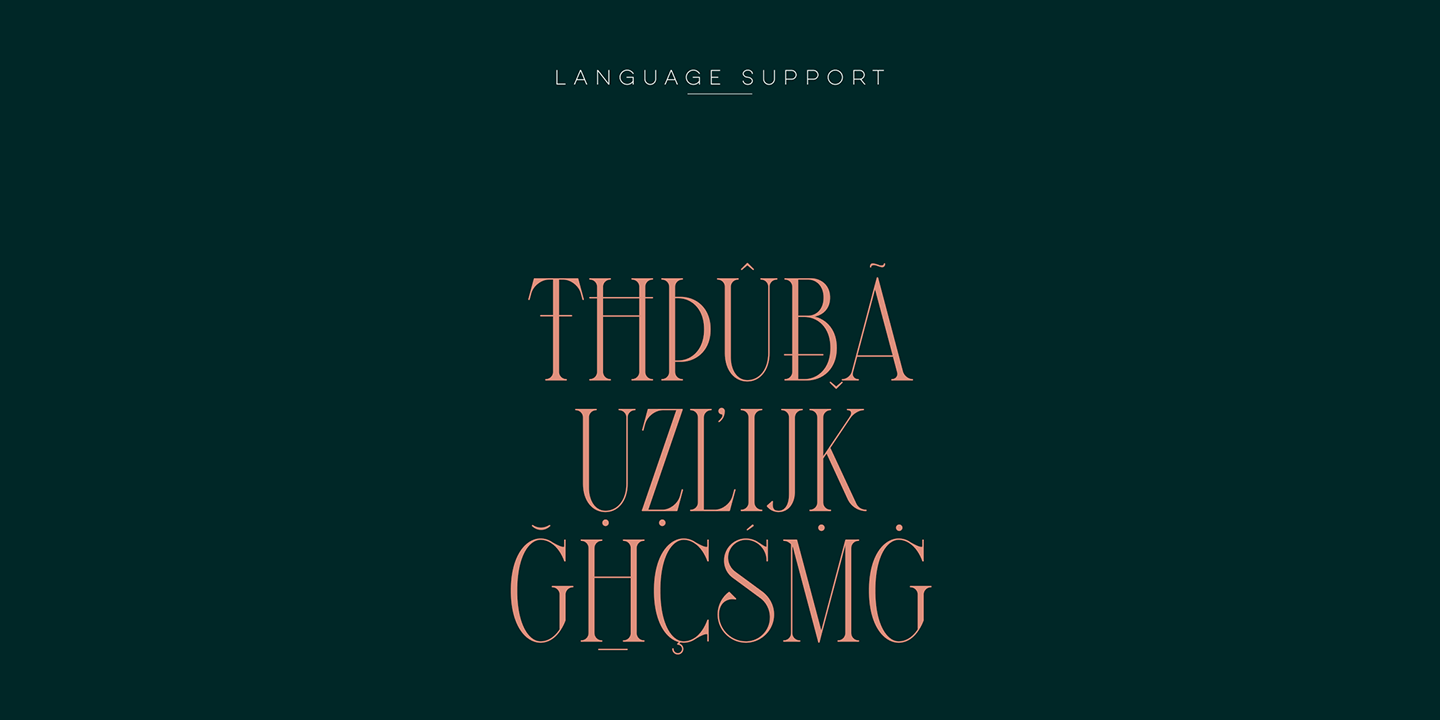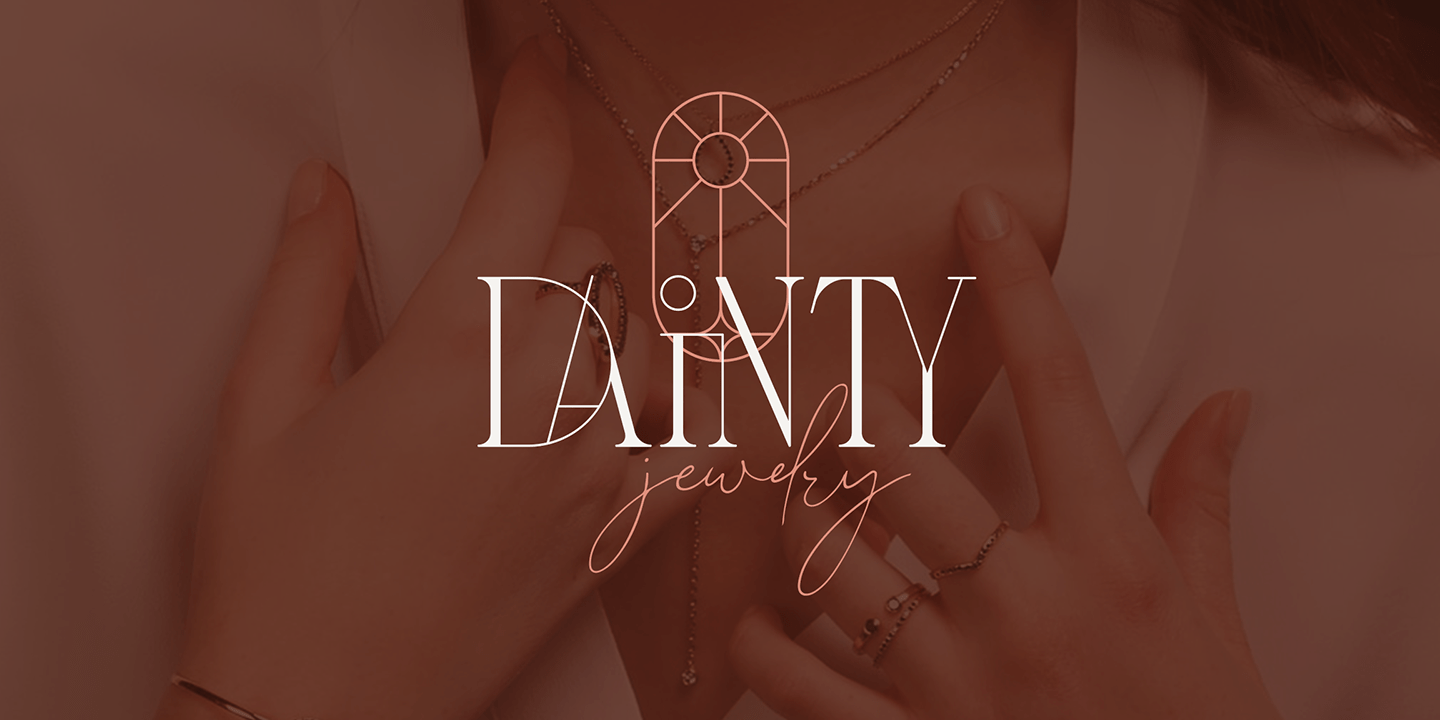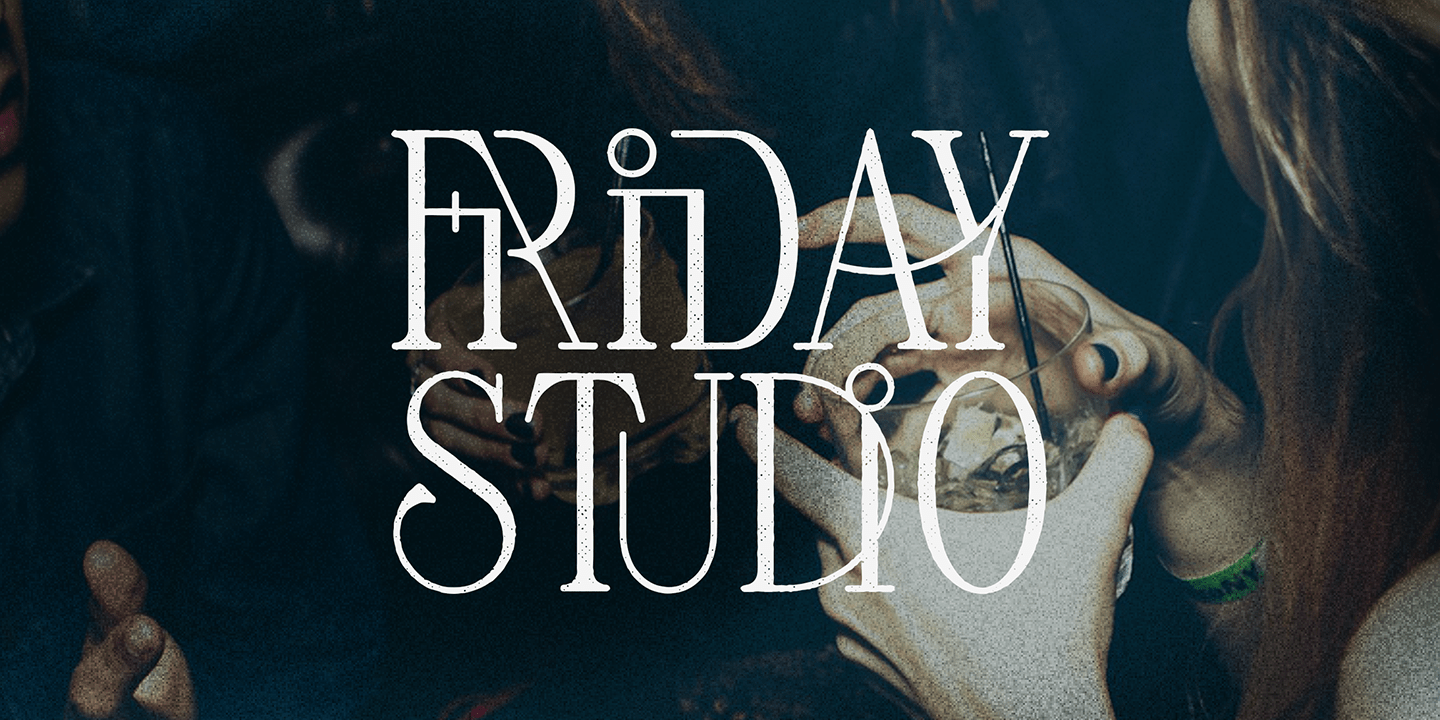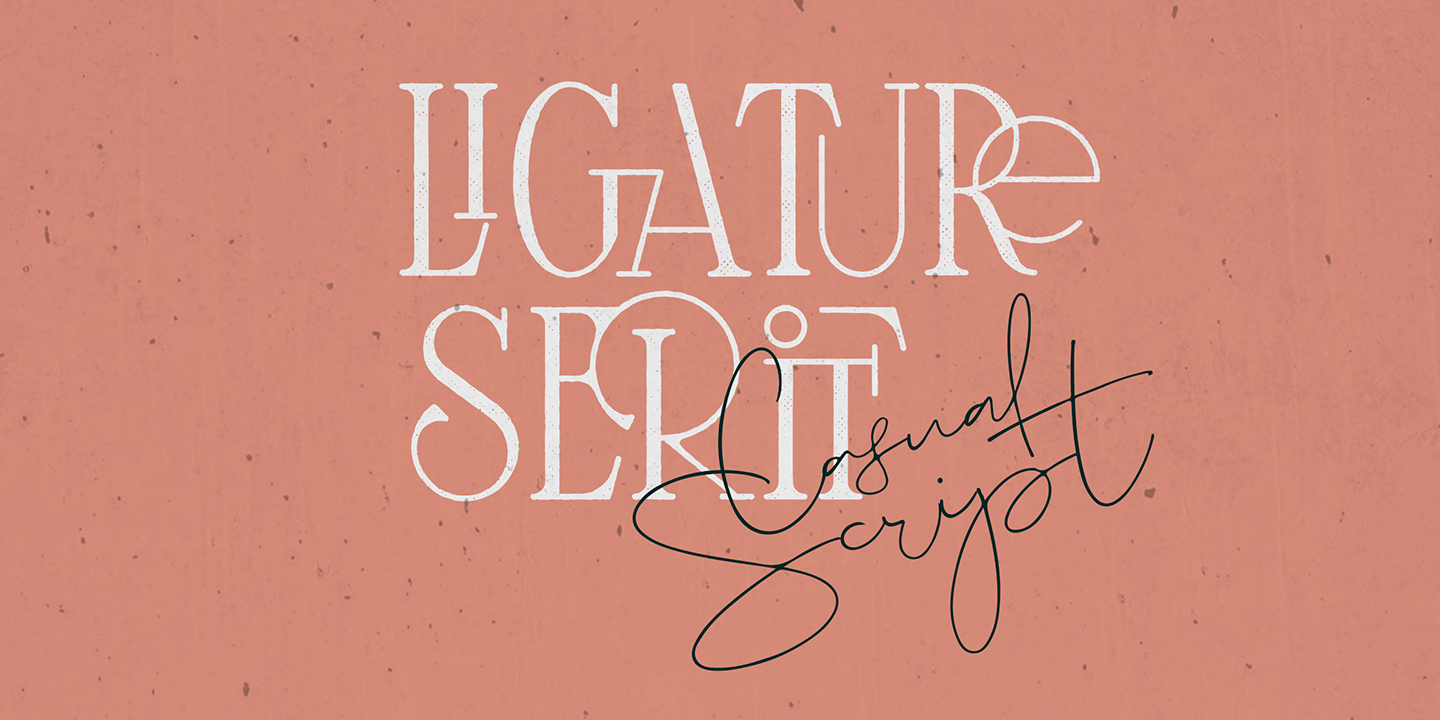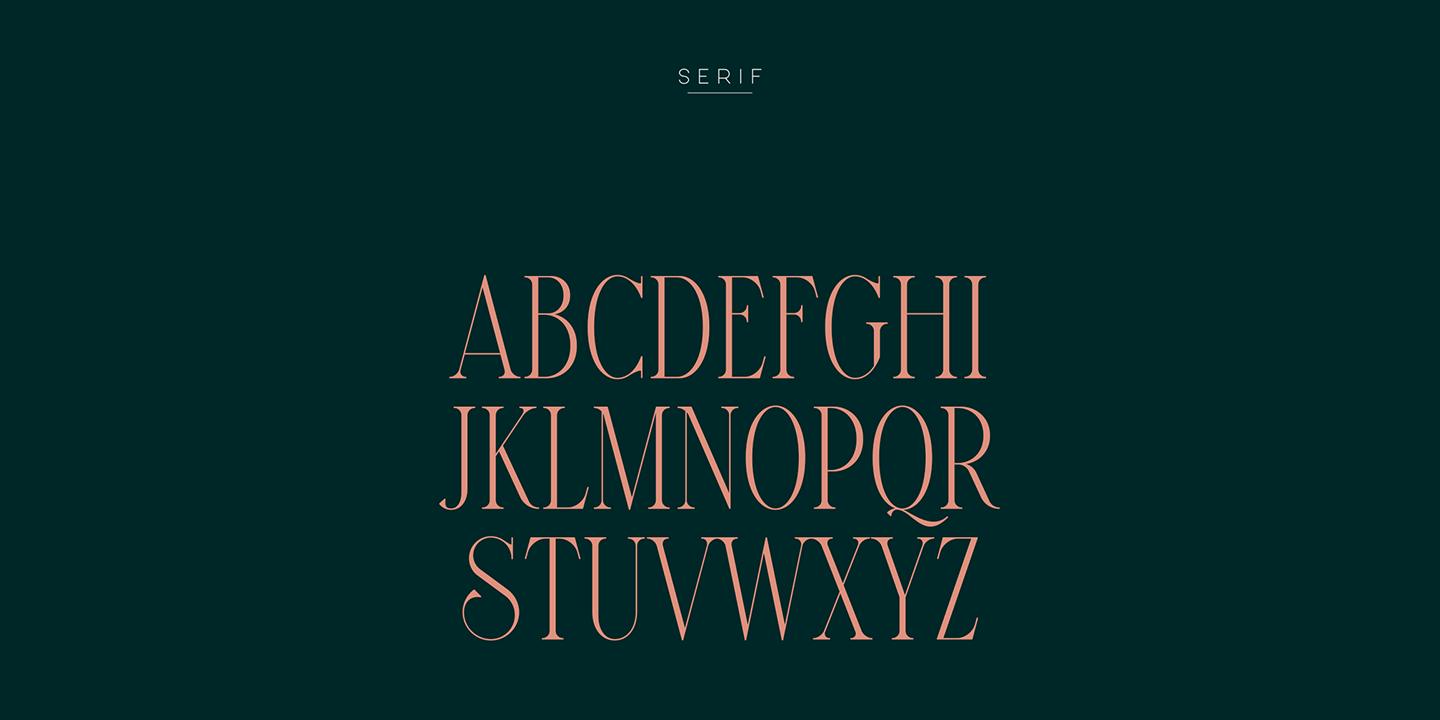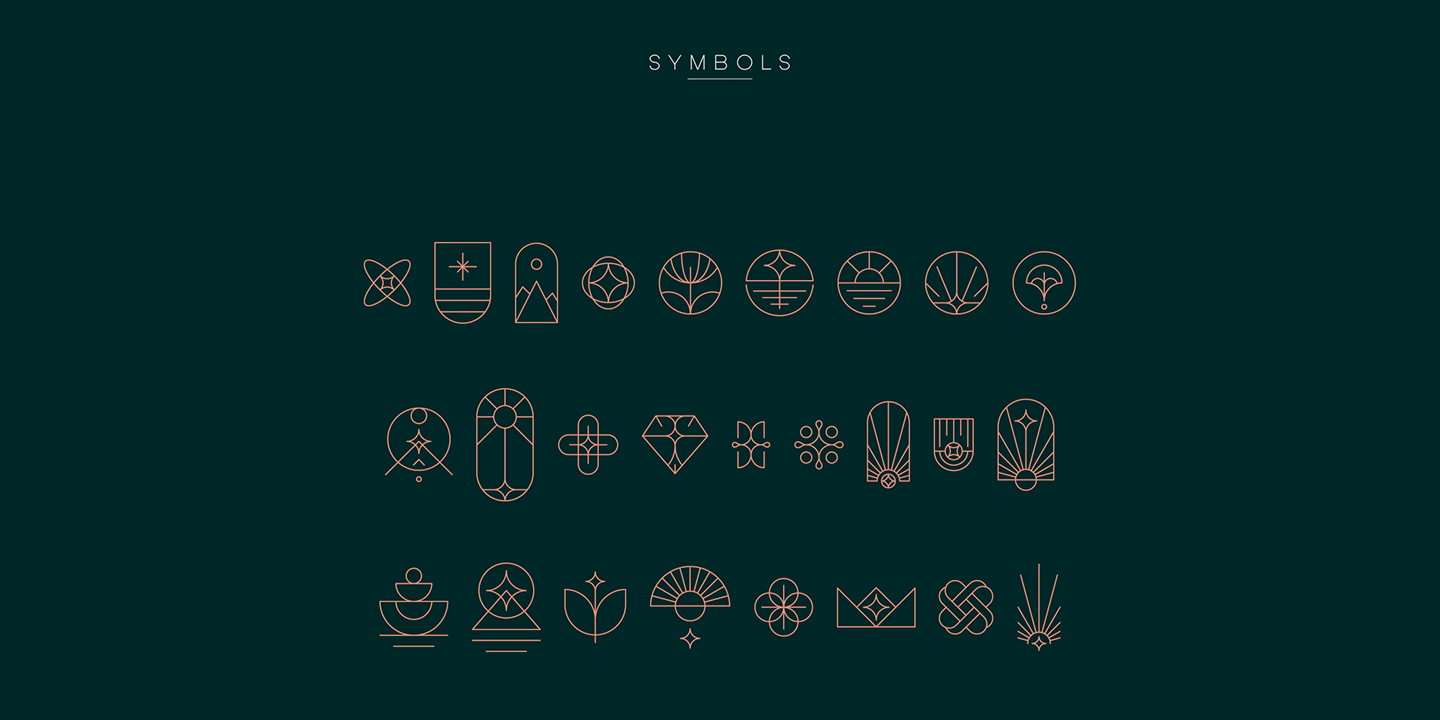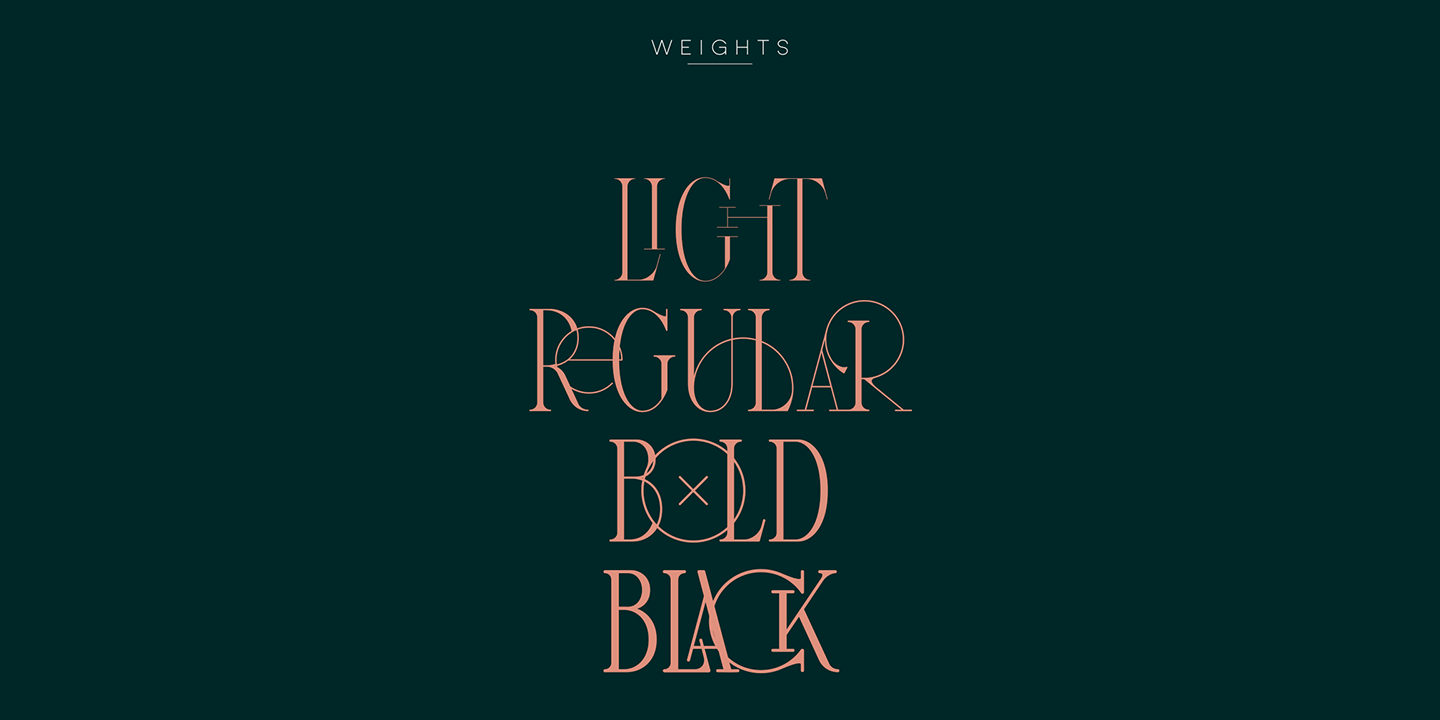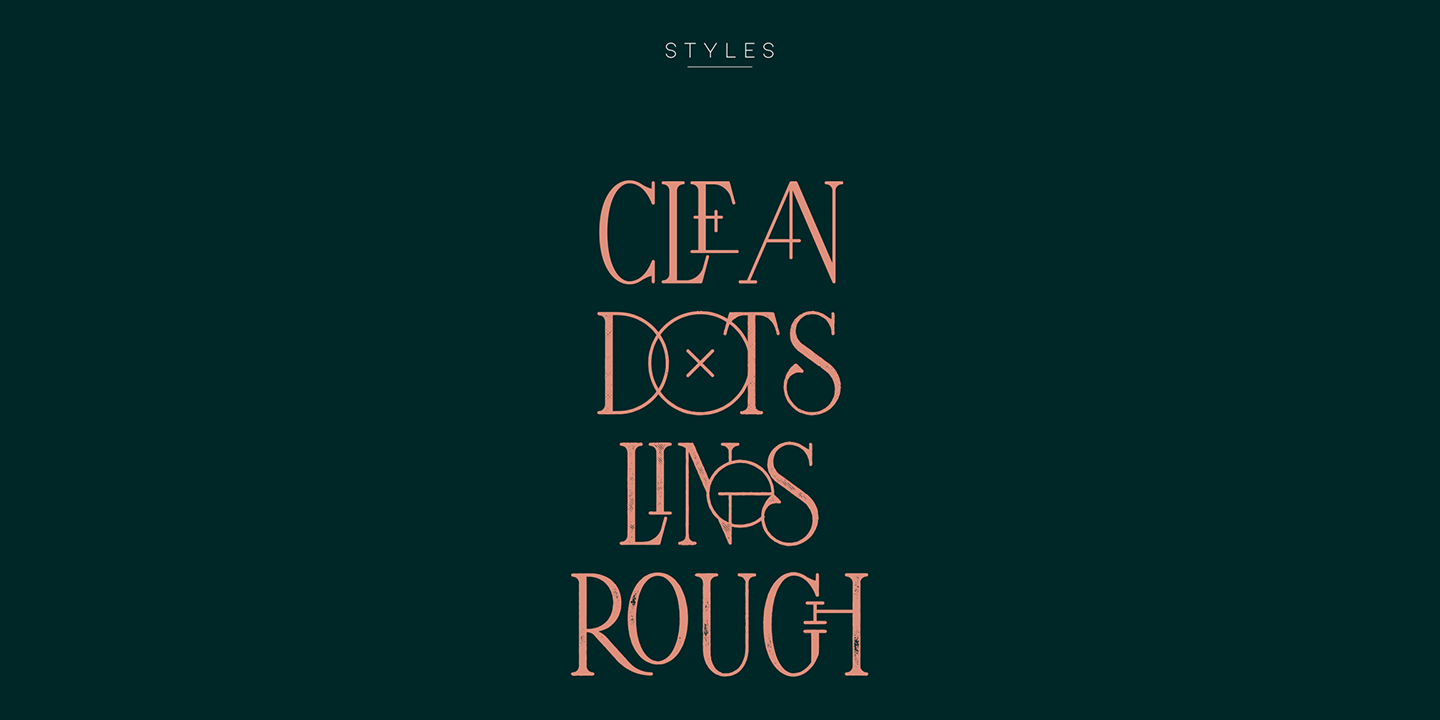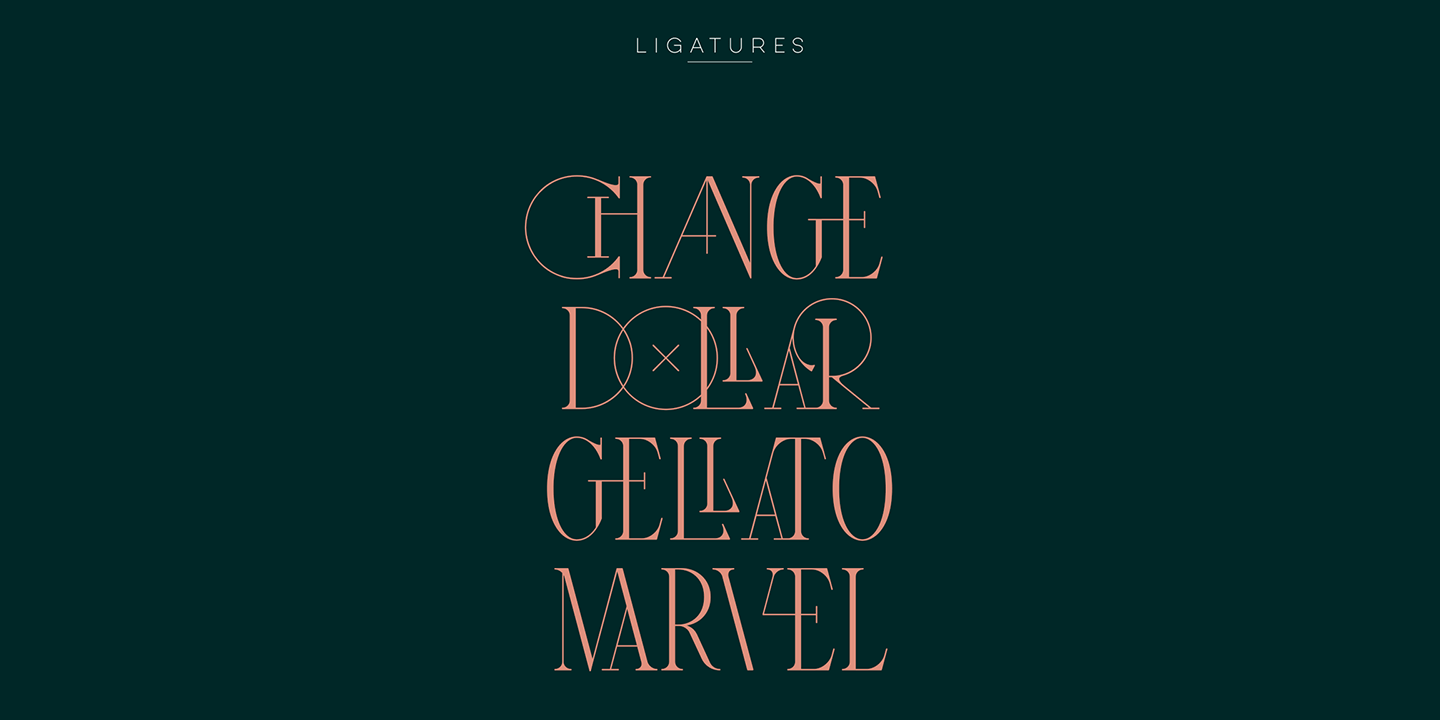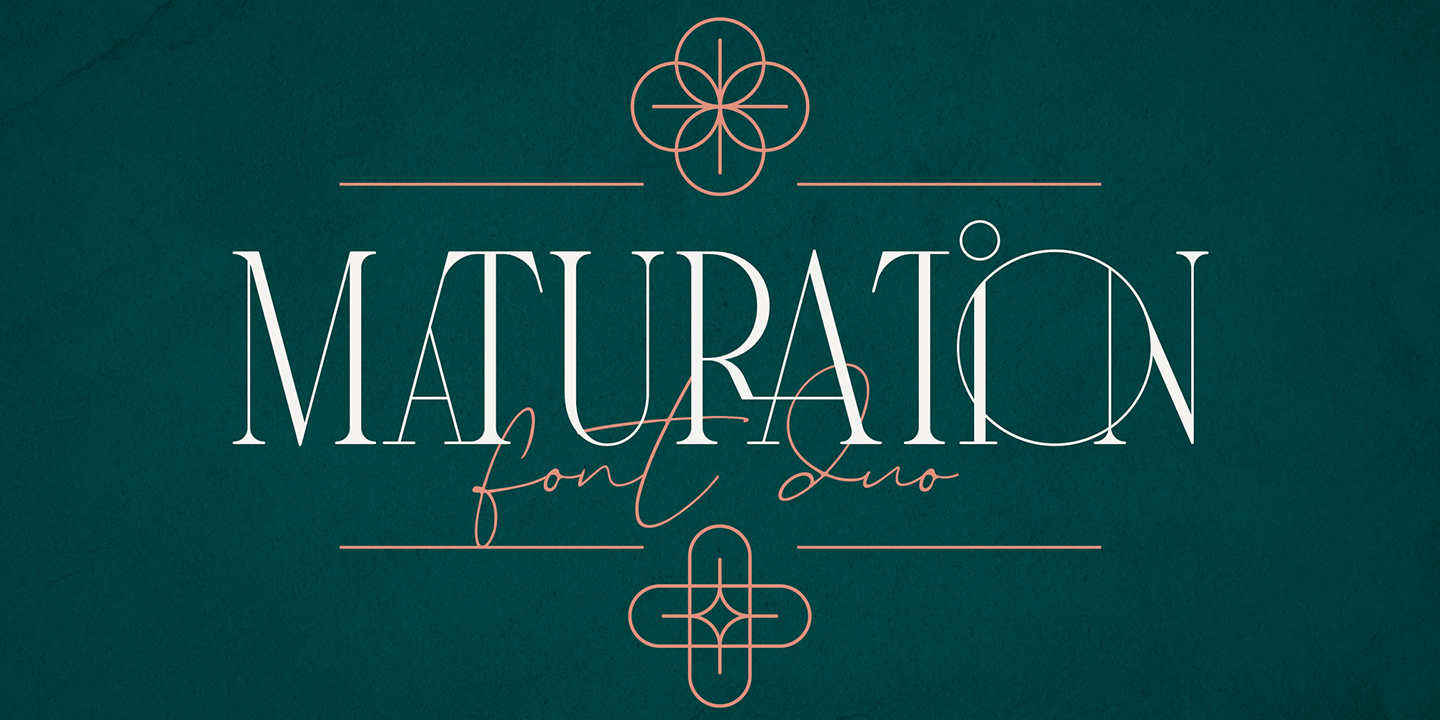
Maturation Font Duo
About Maturation Font Duo
Maturation is a versatile and elegant typeface supporting 87 languages, making it ideal for global applications. The serif version of Maturation offers four distinct weights and available in clean, rough, dots, and lines styles, providing a rich array…